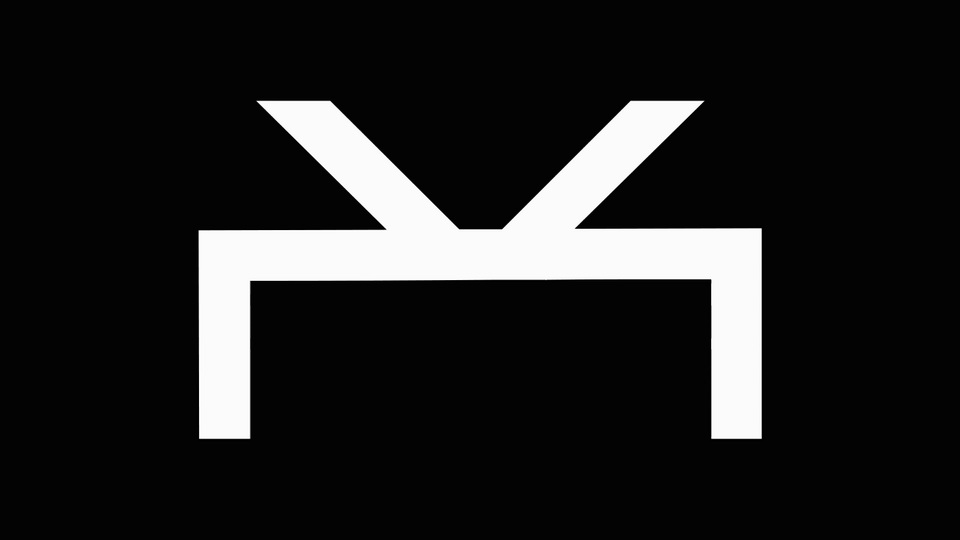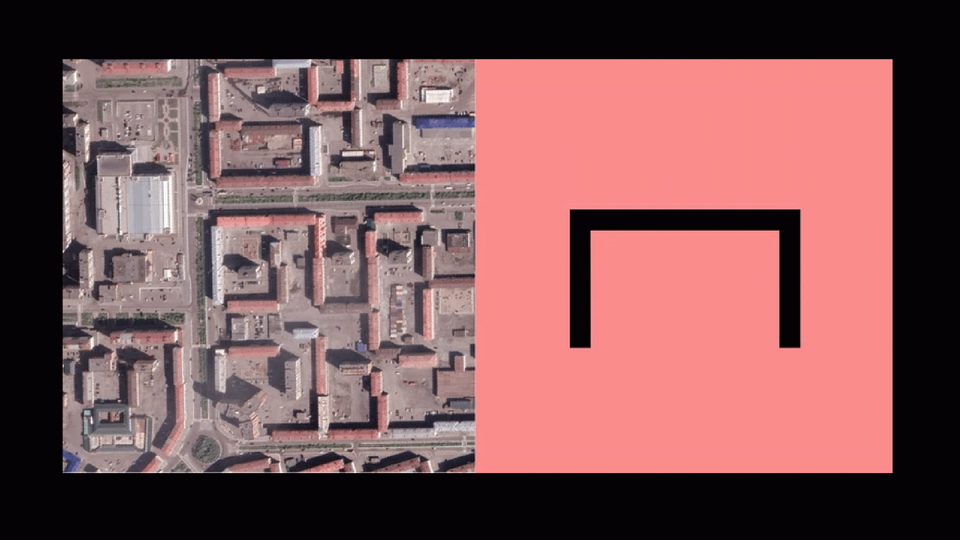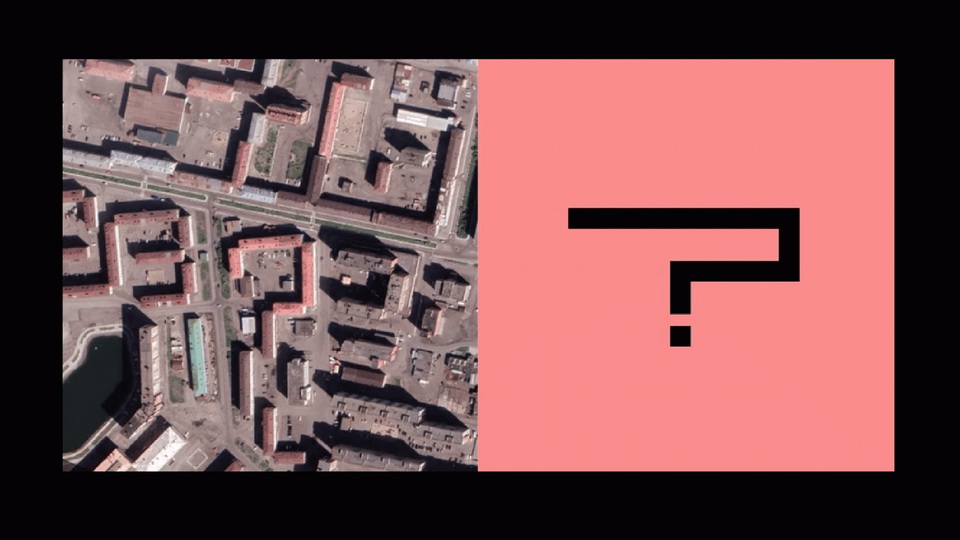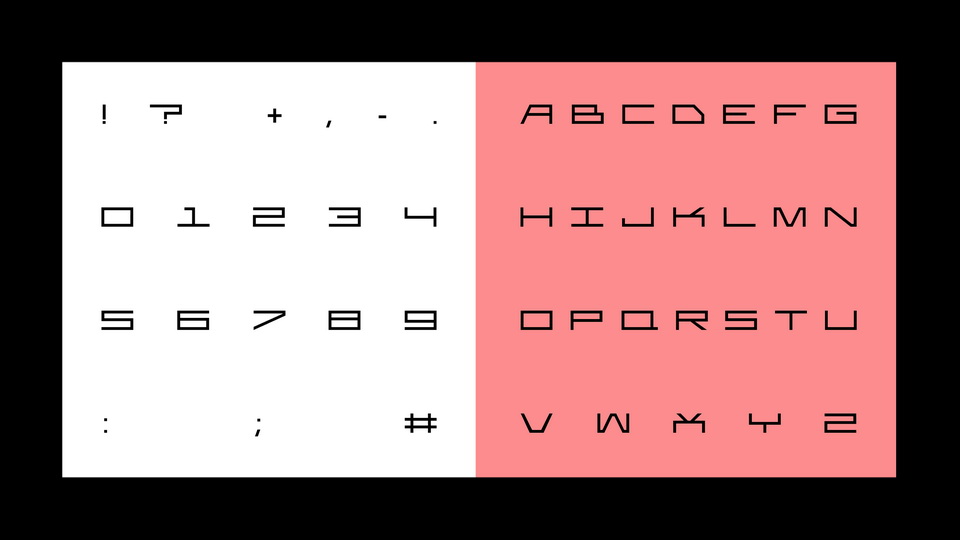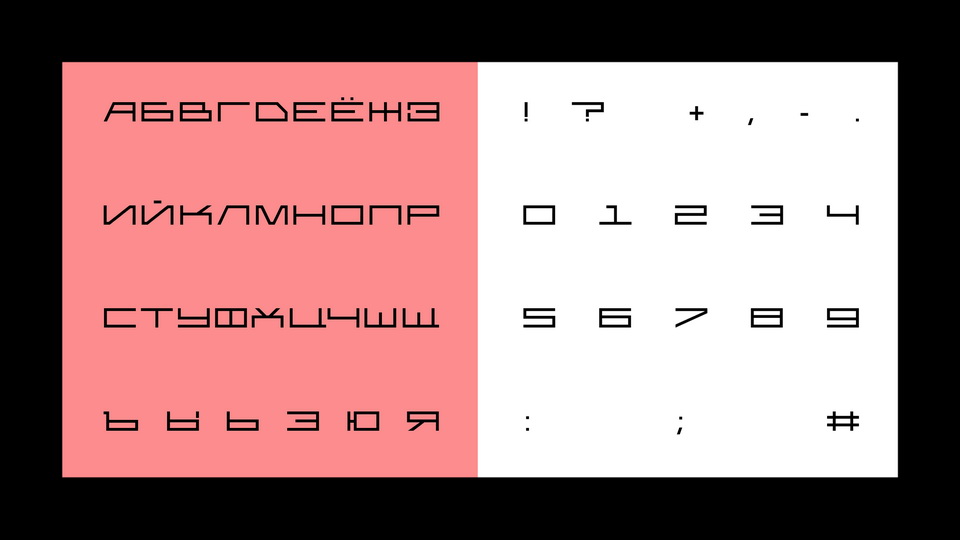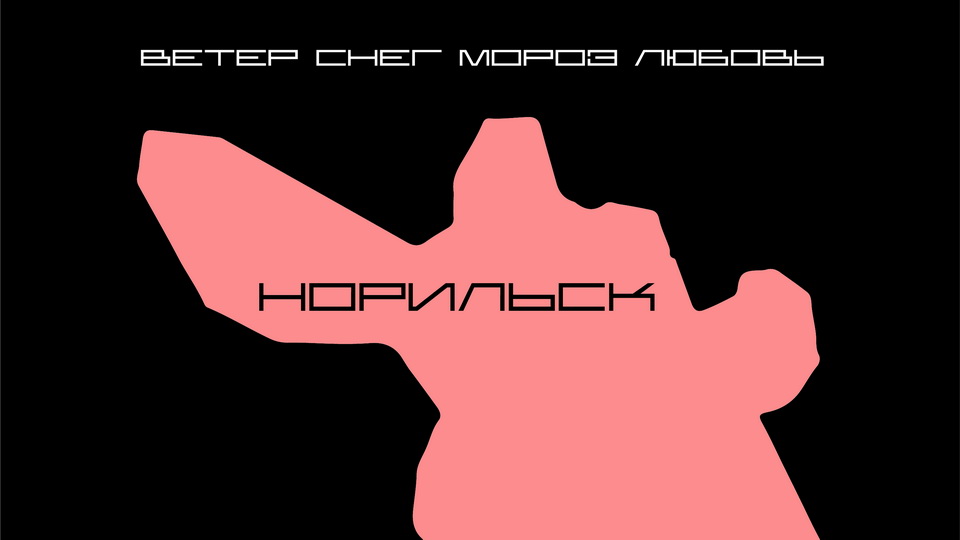
Norilsk is a geometric display typeface inspired by the cold and harsh city Norilsk and its urban architecture. The font works best for posters, headlines and album artworks.
Norilsk font supports Latin and Cyrillic languages.